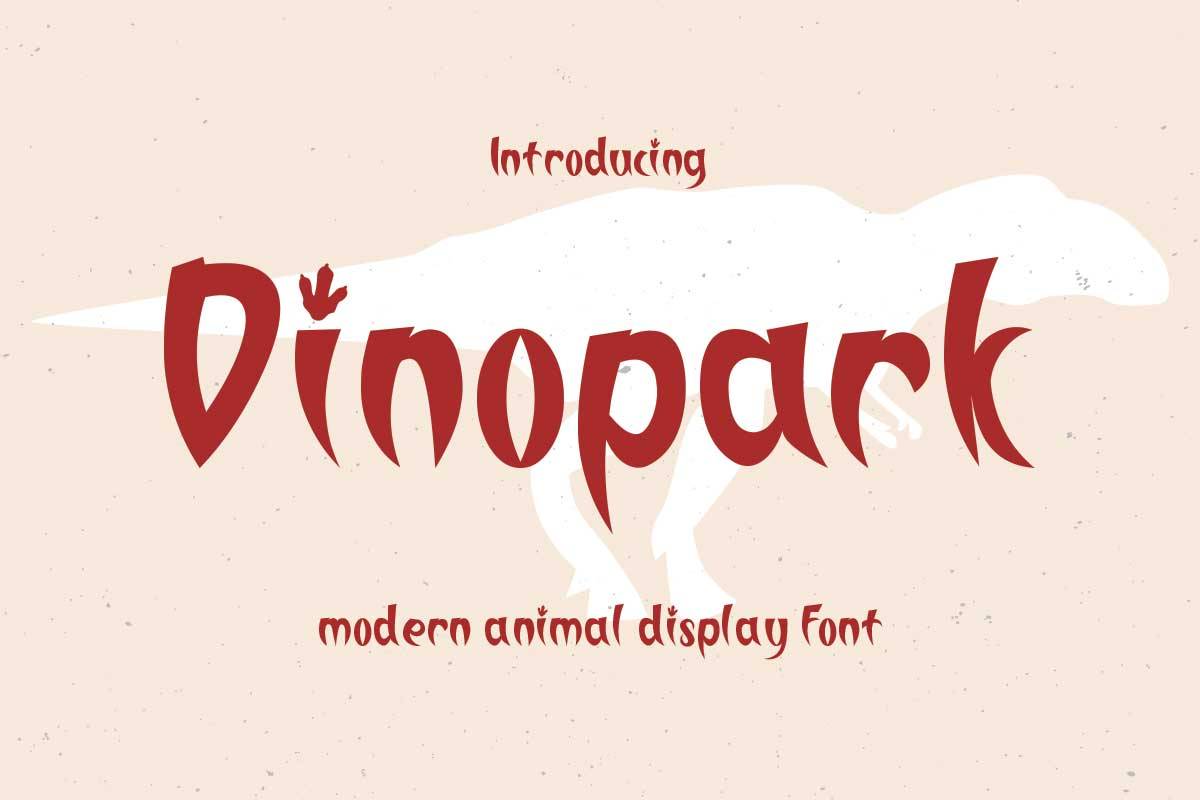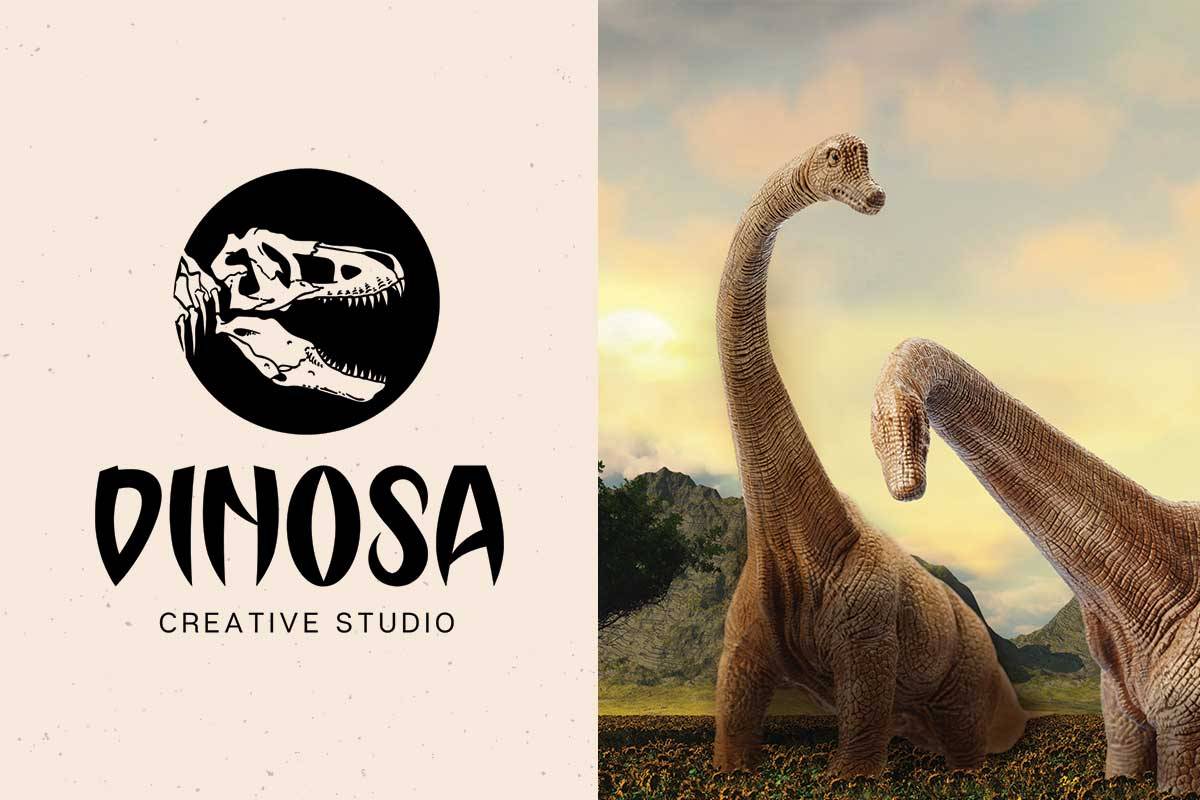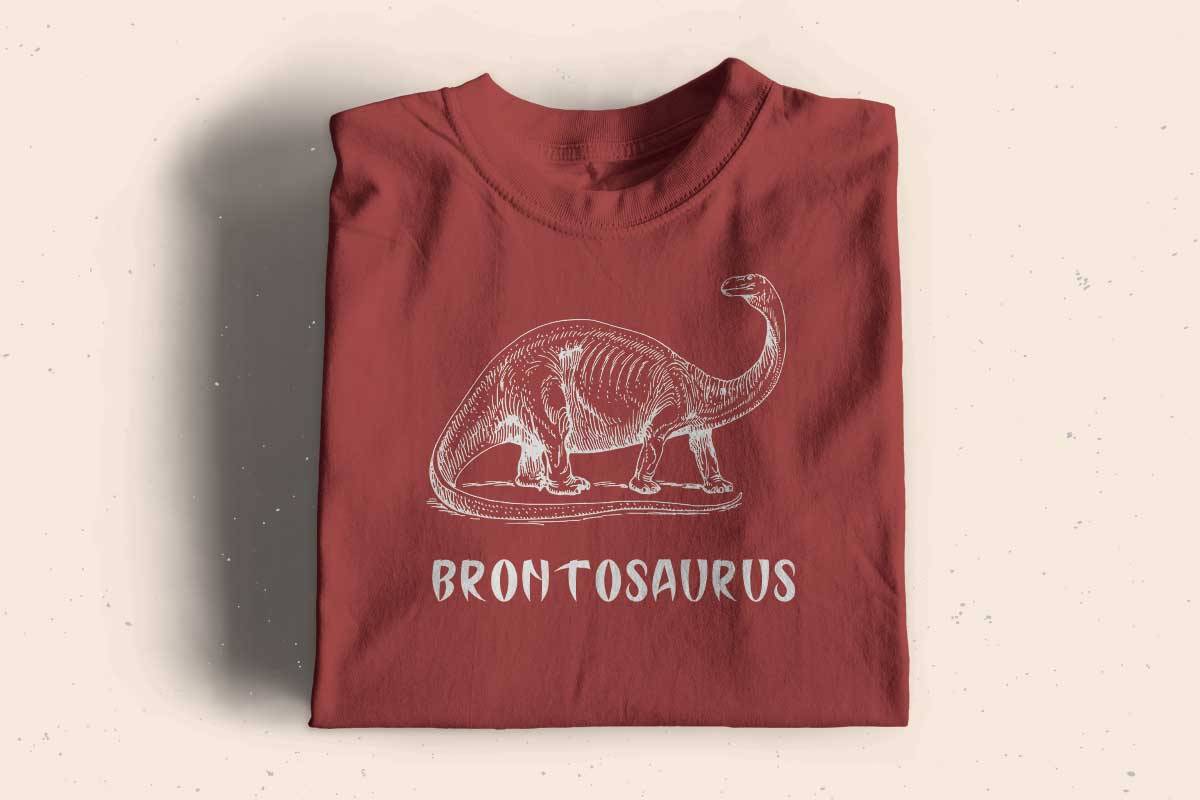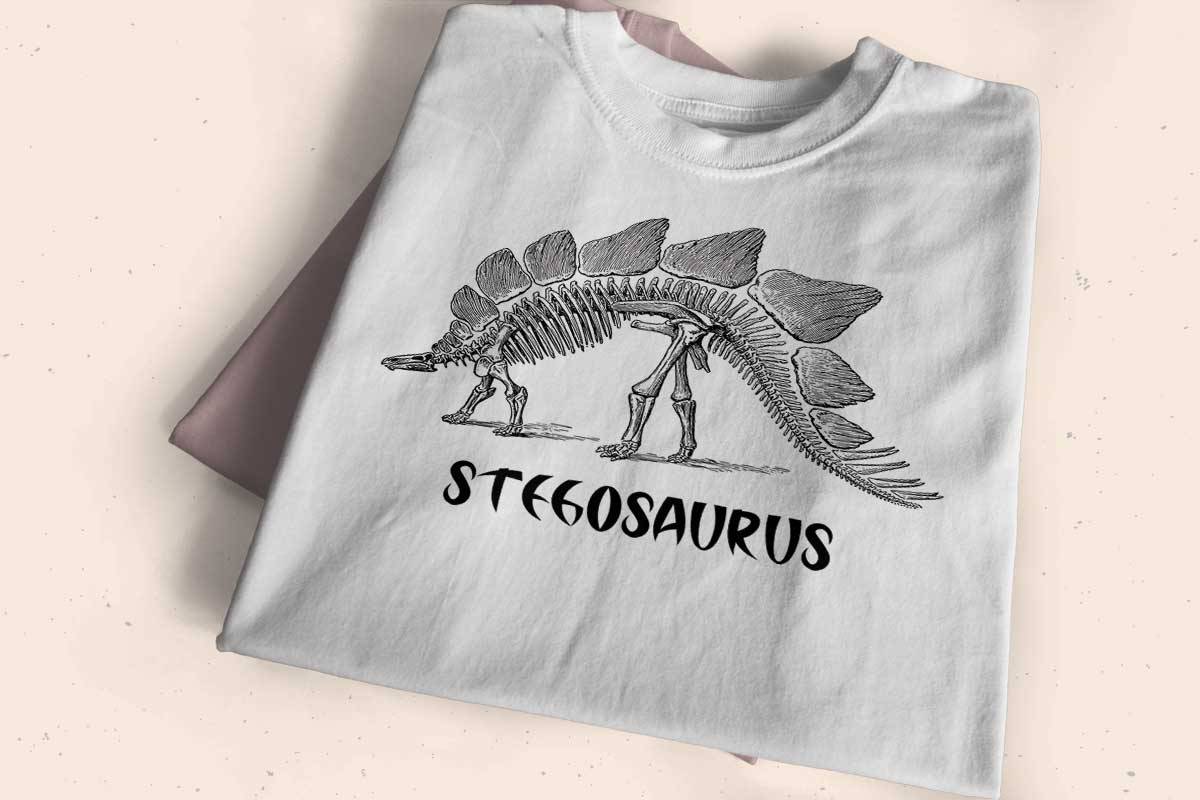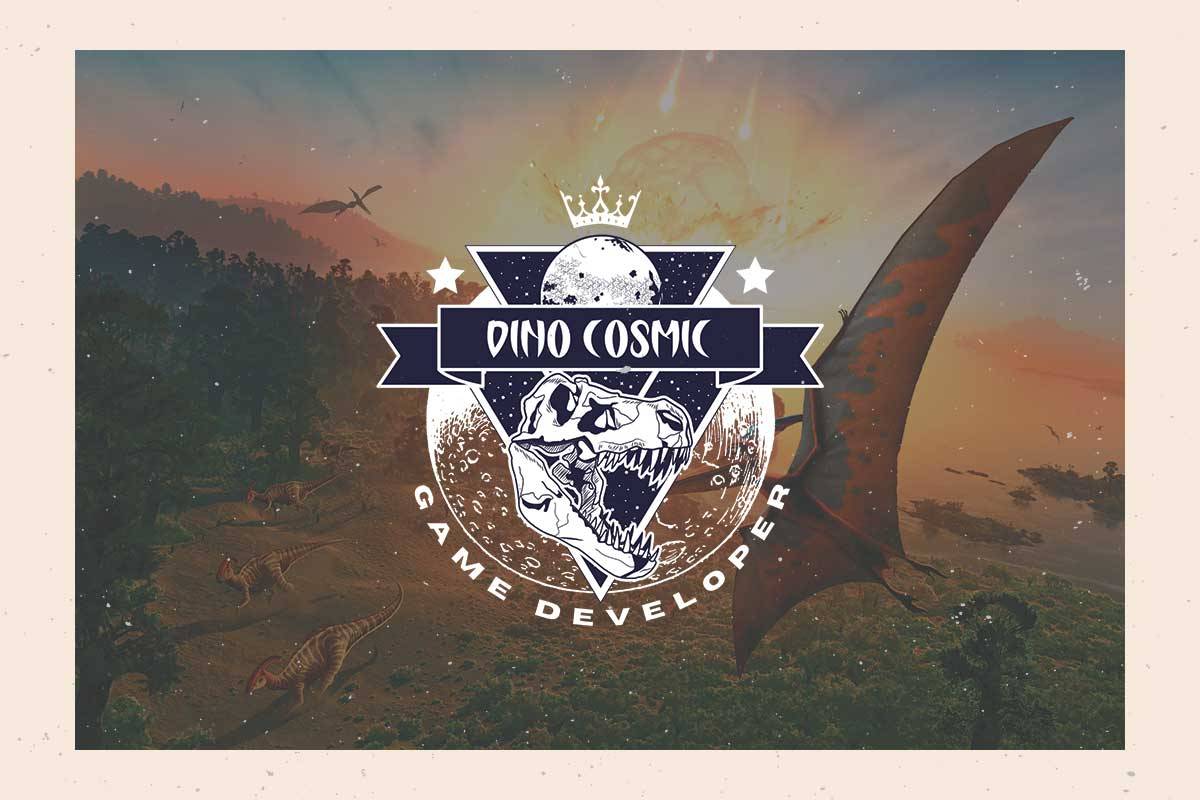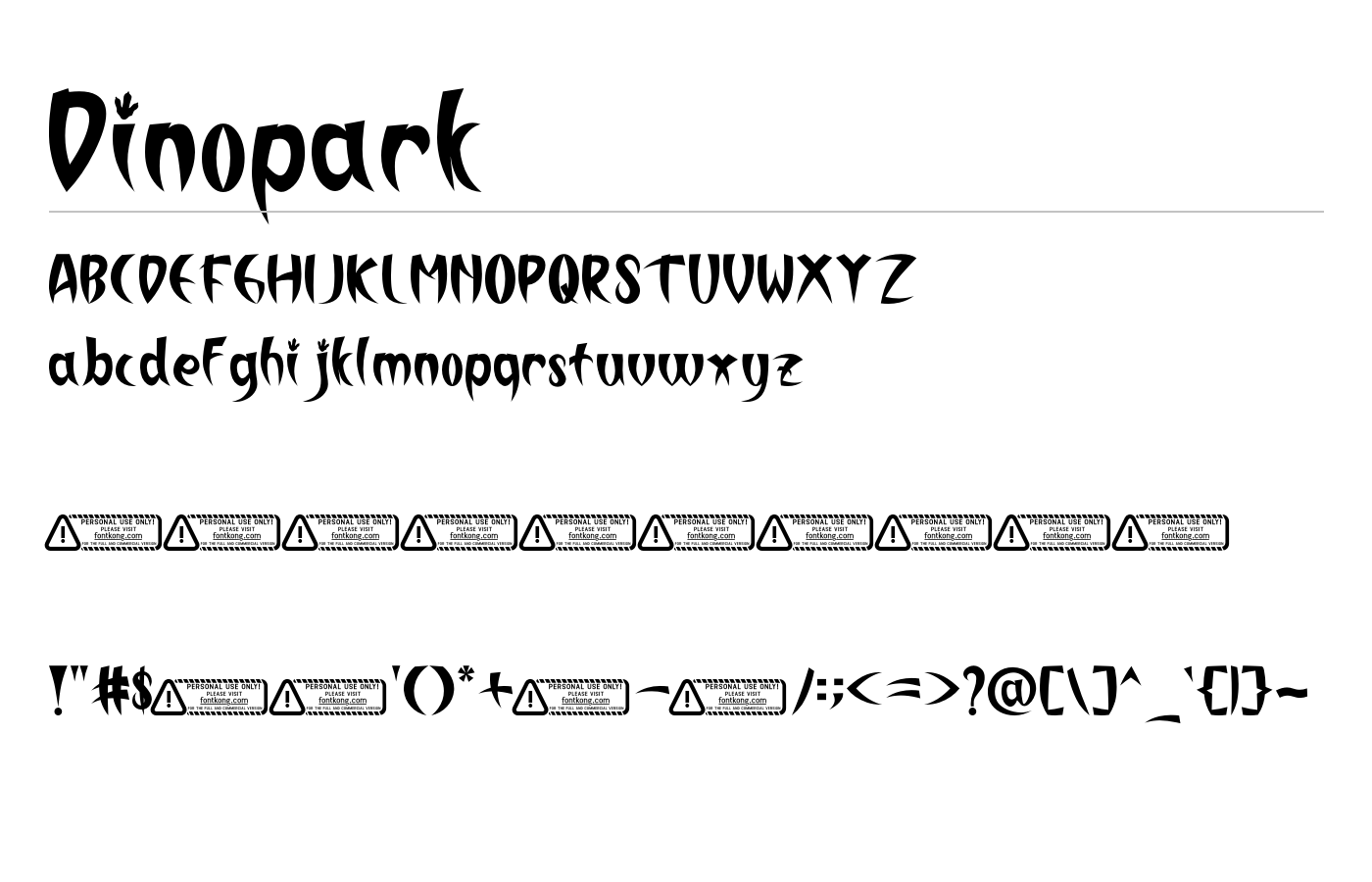
Dinopark is a bold, playful display font featuring strong, uneven strokes and quirky, jagged shapes that evoke a fun, prehistoric or adventure-themed vibe. Its tall, slightly condensed letterforms with whimsical details make it perfect for eye-catching headlines, children’s projects, or themed branding where a lively and dynamic personality is desired. This font works well in creative, informal contexts that aim to capture imagination and excitement.
Dinopark Font
About Dinopark Font
| Font family | Dinopark Font |